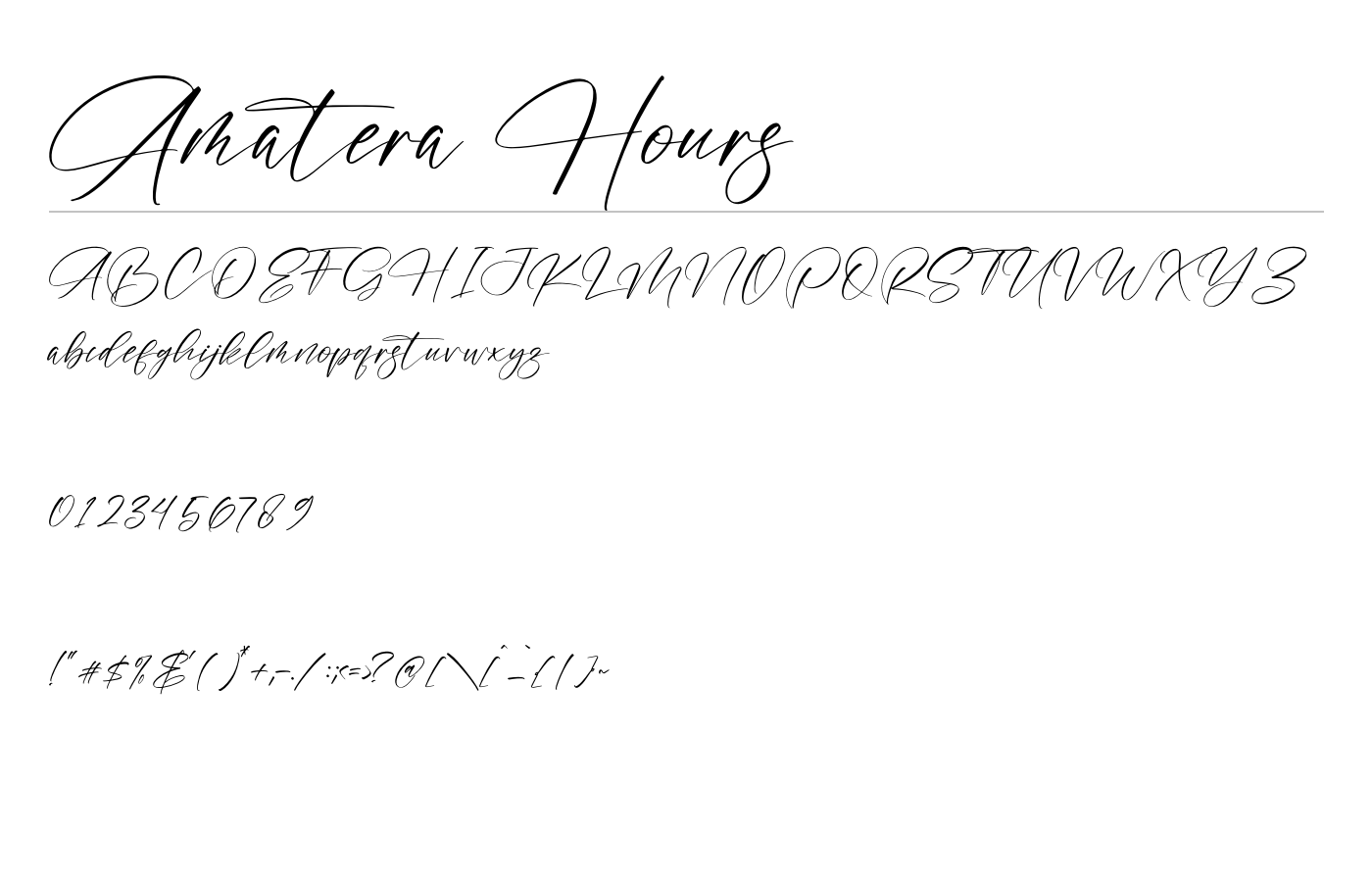
Amatera Hours is an elegant script font characterized by its delicate, flowing strokes and high contrast between thin and slightly thicker lines. It features a graceful, calligraphic style with both uppercase and lowercase letters connecting smoothly, making it perfect for sophisticated branding, wedding invitations, and luxury packaging. This font's refined personality and airy structure bring a romantic, stylish feel suited for upscale and artistic designs.
Amatera Hours Font
About Amatera Hours Font